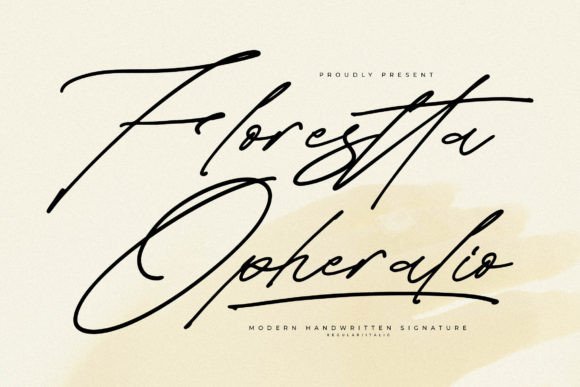
Introducing Florestta Opheralio Font - the epitome of modern handwritten signatures! Crafted with utmost precision and created by the talented Glorytype Studio, this font is perfect for those seeking the best fonts for material design.
Imagine the impact this captivating script font can have on your projects. Whether you're designing a logo, working on a branding project, or creating stunning homeware designs, Florestta Opheralio Font will elevate your creations to new heights.
With its elegant and stylish strokes, this font adds a touch of sophistication to product packaging, mugs, quotes, posters, shopping bags, t-shirts, book covers, name cards, invitation cards, greeting cards, labels, photography, watermarks, and special events. The possibilities are endless!
What sets Florestta Opheralio Font apart is its ability to evoke emotions and create a lasting impression. Its flowing and graceful curves exude a sense of charm and allure, capturing the attention of anyone who lays eyes on it.
Each letter is carefully crafted to perfection, ensuring a seamless and visually pleasing experience. The attention to detail is unparalleled, making this font a must-have for anyone looking to leave a lasting impact on their audience.
But it's not just about the aesthetics. Florestta Opheralio Font is designed to be versatile and adaptable to various design projects. It effortlessly complements any style, adding a touch of elegance and finesse.